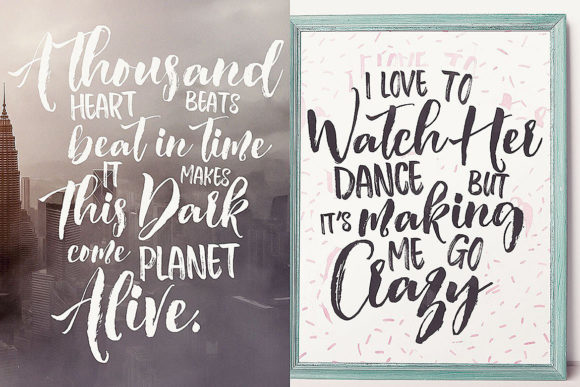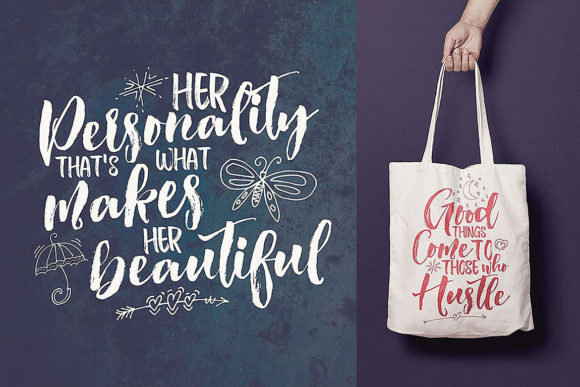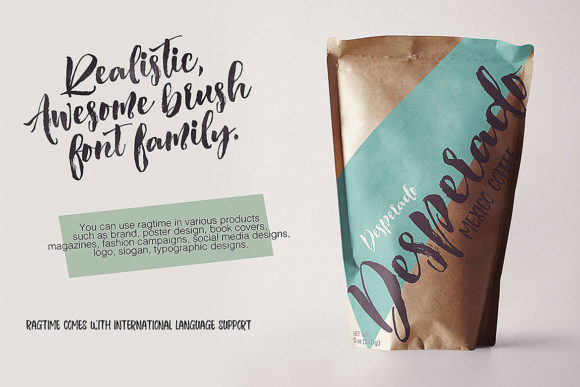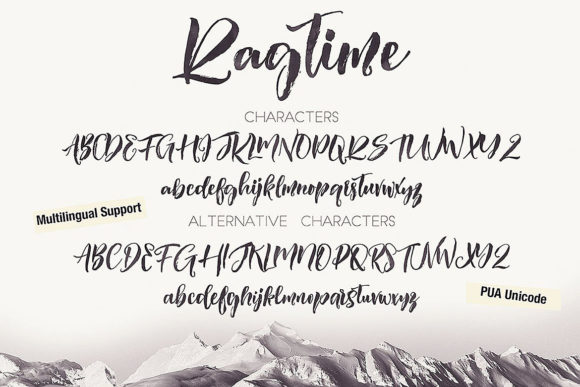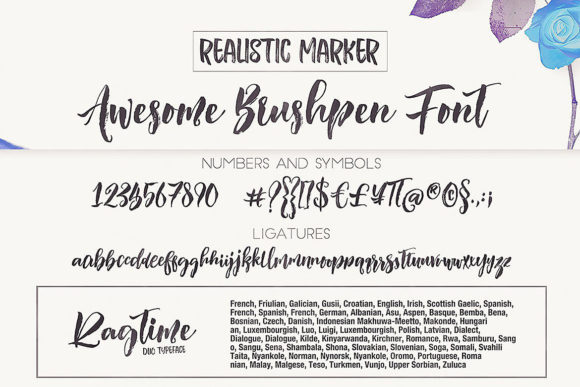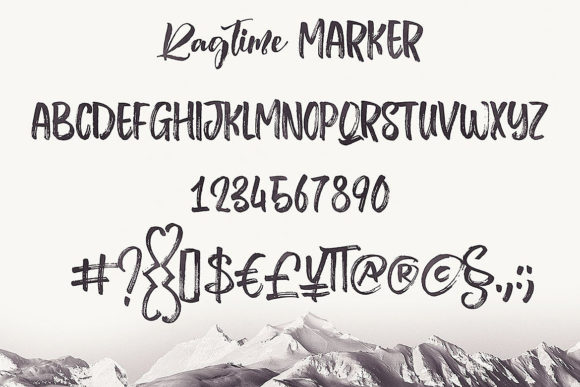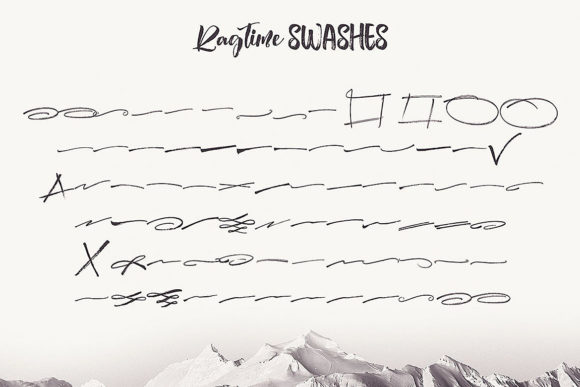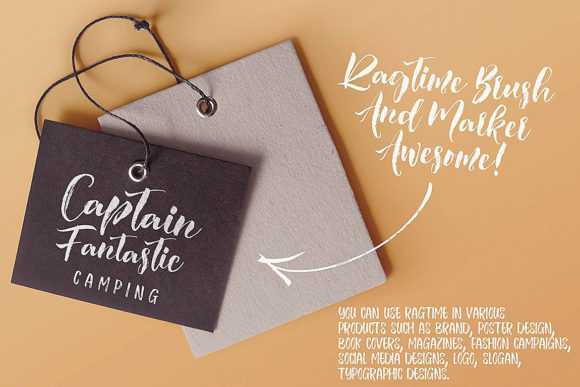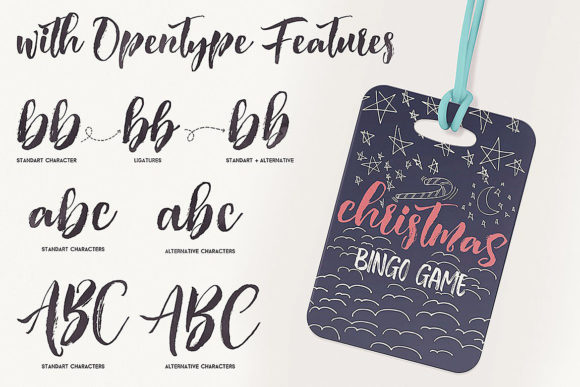
HomeScript FontsRagtime Font Script Fonts Ragtime Font FacebookXPinterestWhatsApp Ragtime Font Poster 2 Ragtime Font Poster 3 Ragtime Font Poster 4 Ragtime Font Poster 5 Ragtime Font Poster 6 Ragtime Font Poster 7 Ragtime Font Poster 8 Ragtime Font Poster 9 Ragtime Font Poster 10 Ragtime Font Poster 11 About Ragtime Font The Ragtime is a cool brush font. It was handwritten and includes 3 amazing variations. DOWNLOAD ON CREATIVE FABRICAThis font is sold and delivered by Creative Fabrica. Font Canyon may earn a commission if you buy through this link. People also explored Farm Dream Font Angelus Font Halloween Blacky Font Gending Font Mi Amor Monogram Font Sothardjo Font Monthana Font Orrick Carita Font 419 0 TagsRagtime Font Previous articleBaillando FontNext articleMustang Font LEAVE A REPLY Cancel reply Comment: Please enter your comment! Name:* Please enter your name here Email:* You have entered an incorrect email address! Please enter your email address here Website: Save my name, email, and website in this browser for the next time I comment. Personal Use Free Morning Miow Personal Use Free Read more about this font Tahu Font Personal Use Free Read more about this font Senza Bella Personal Use Free Read more about this font Qiwqiw Personal Use Free Read more about this font BLOG Fonts That Capture the Spirit of New York City New York City is more than just a place—it’s an experience, a rhythm, a visual language... The 10 Best Handwriting Fonts to Add Personality to Your Designs Best Fonts for YouTube Videos: Make Your Thumbnails Stand Out 5 Fonts That Will Dominate Design Trends in 2026